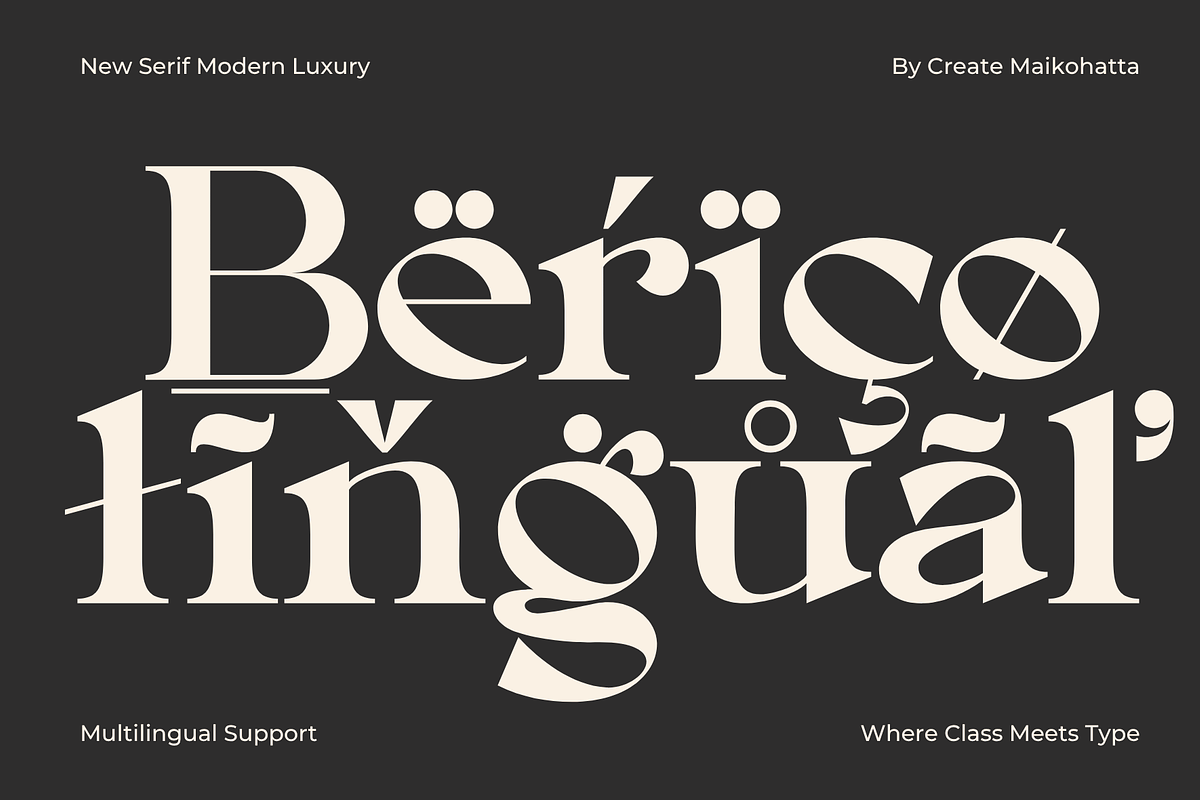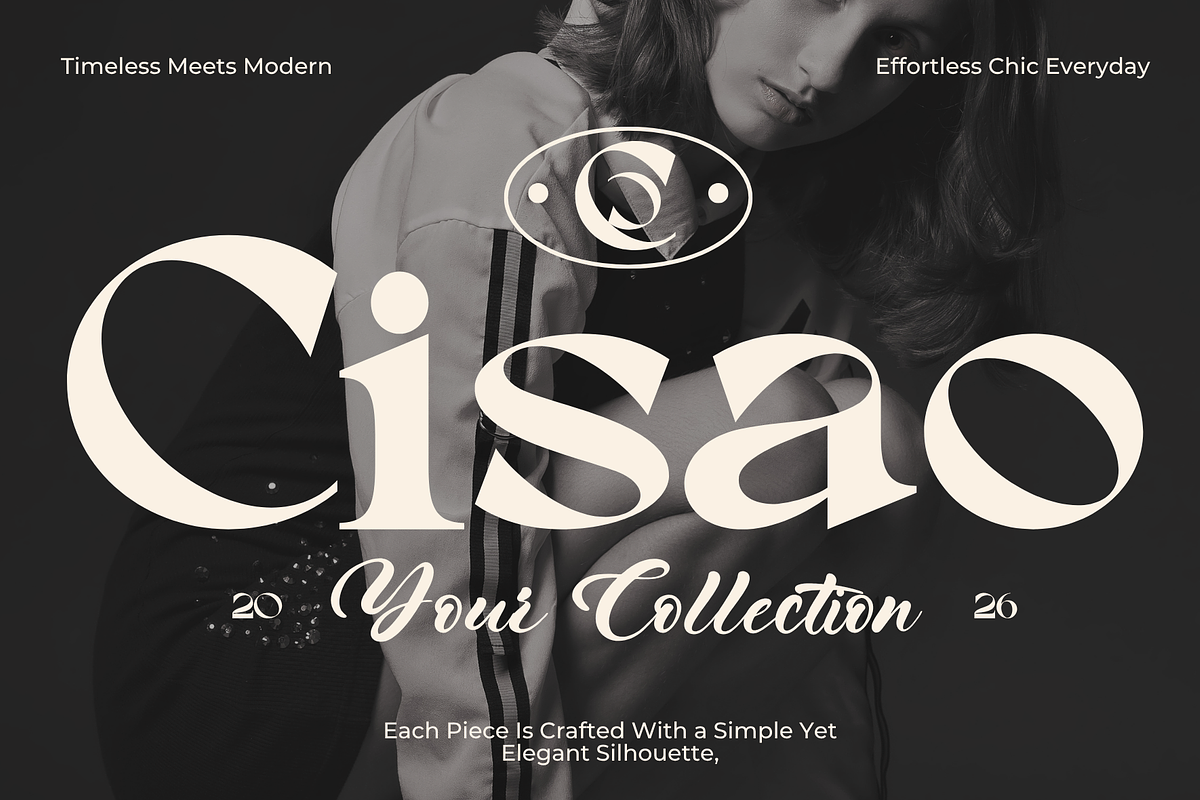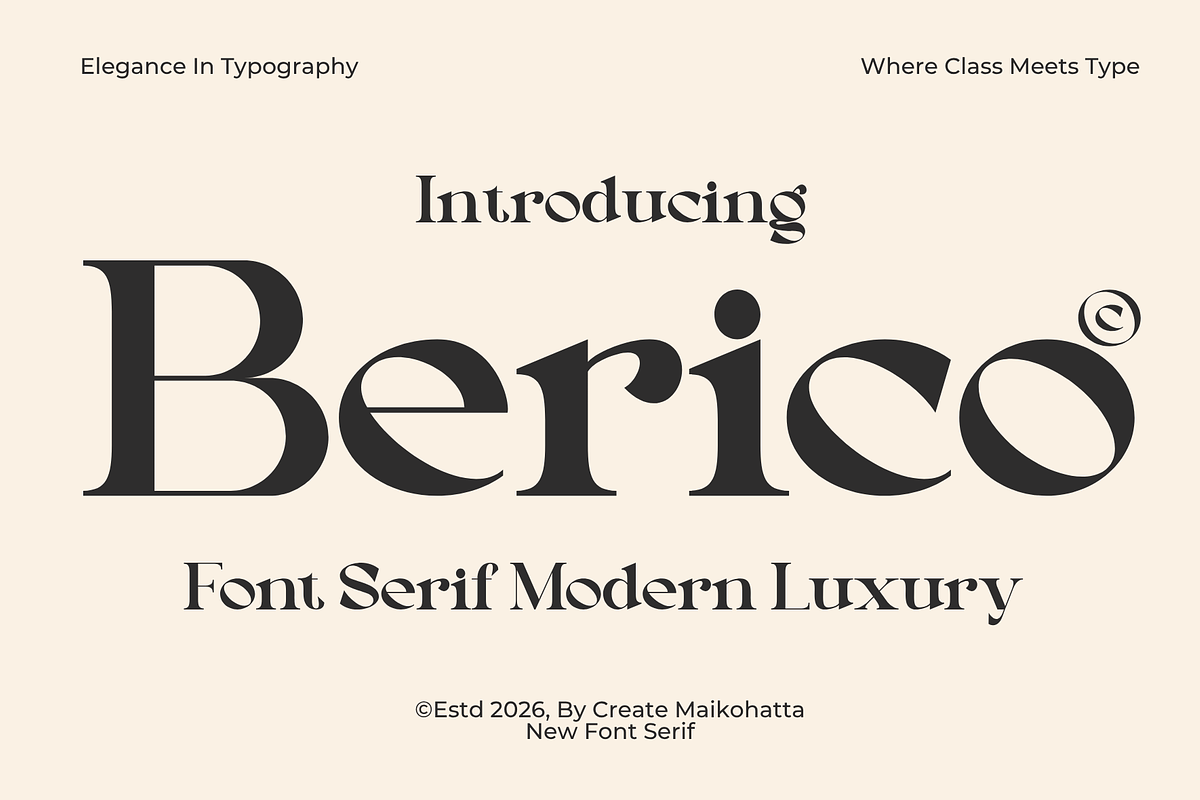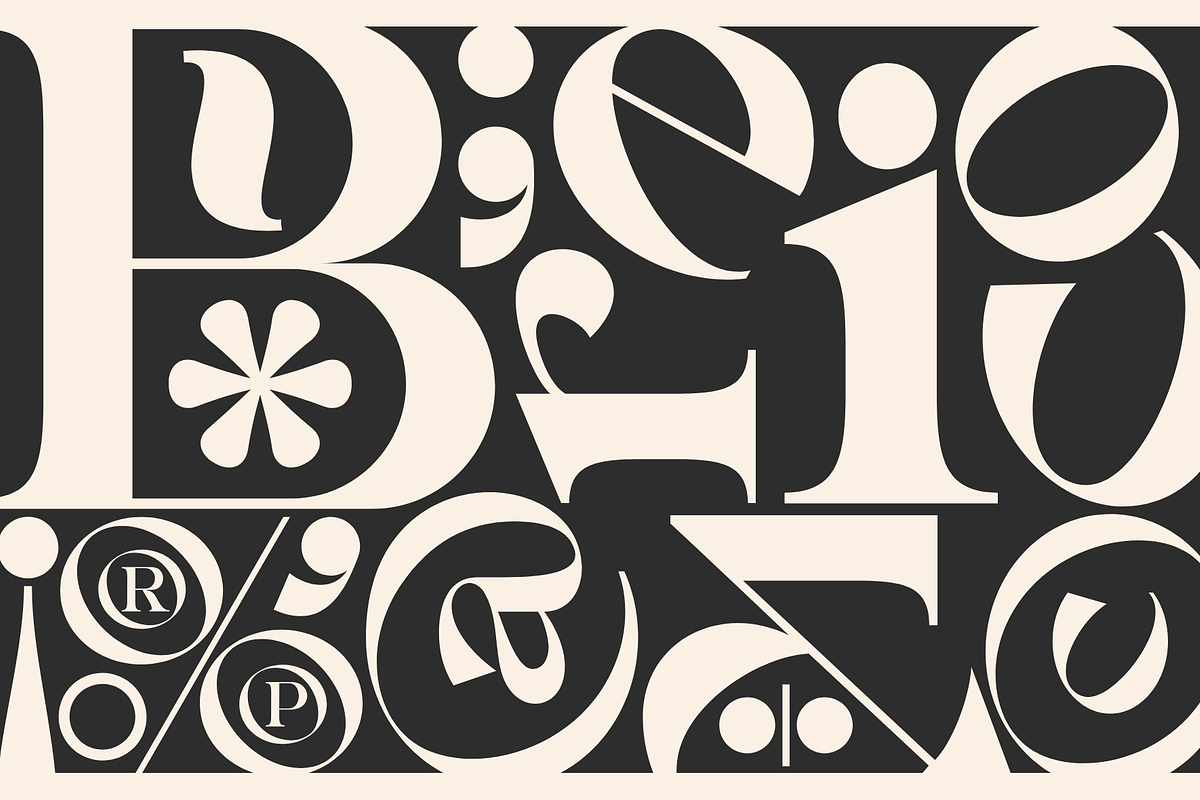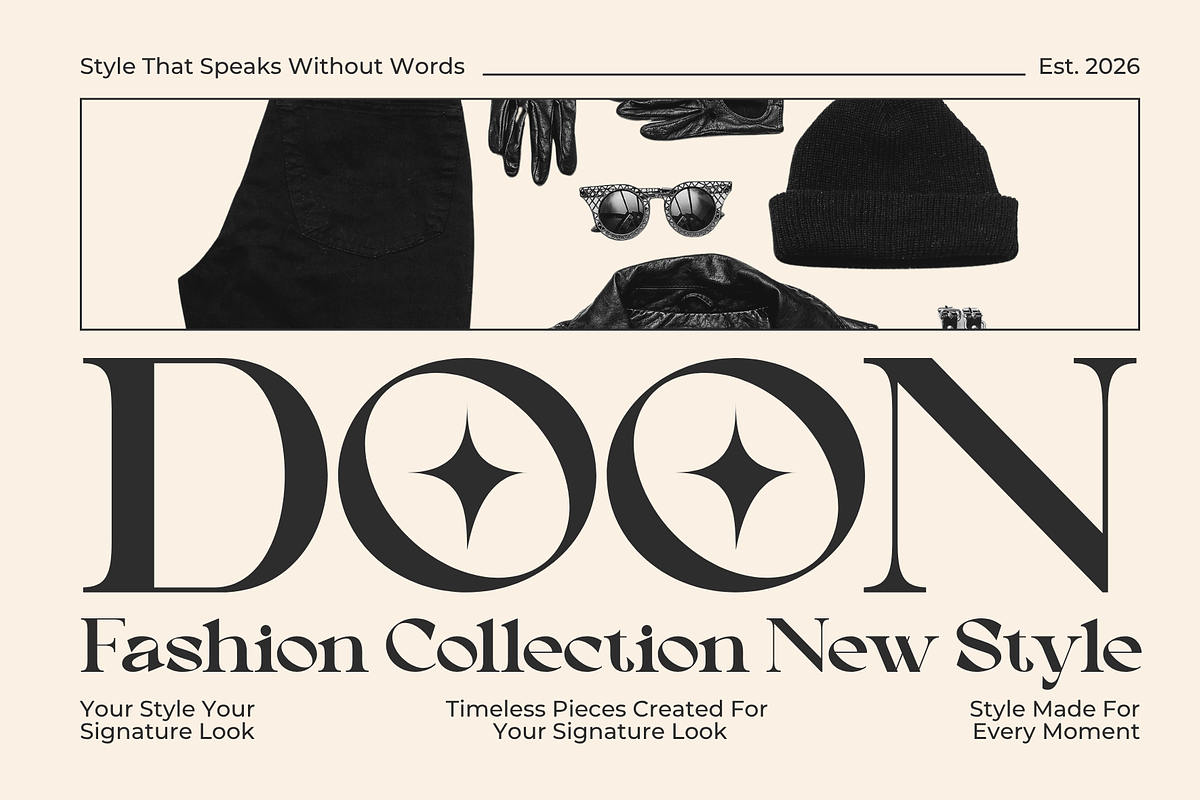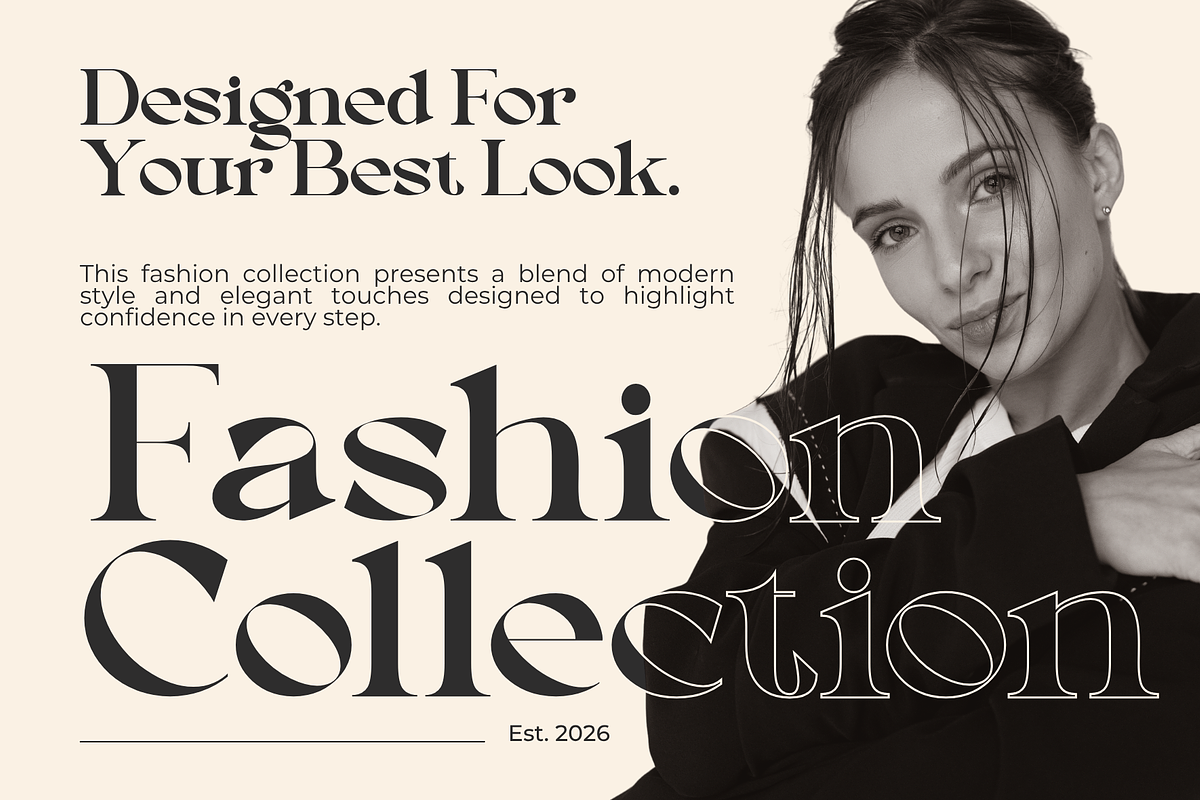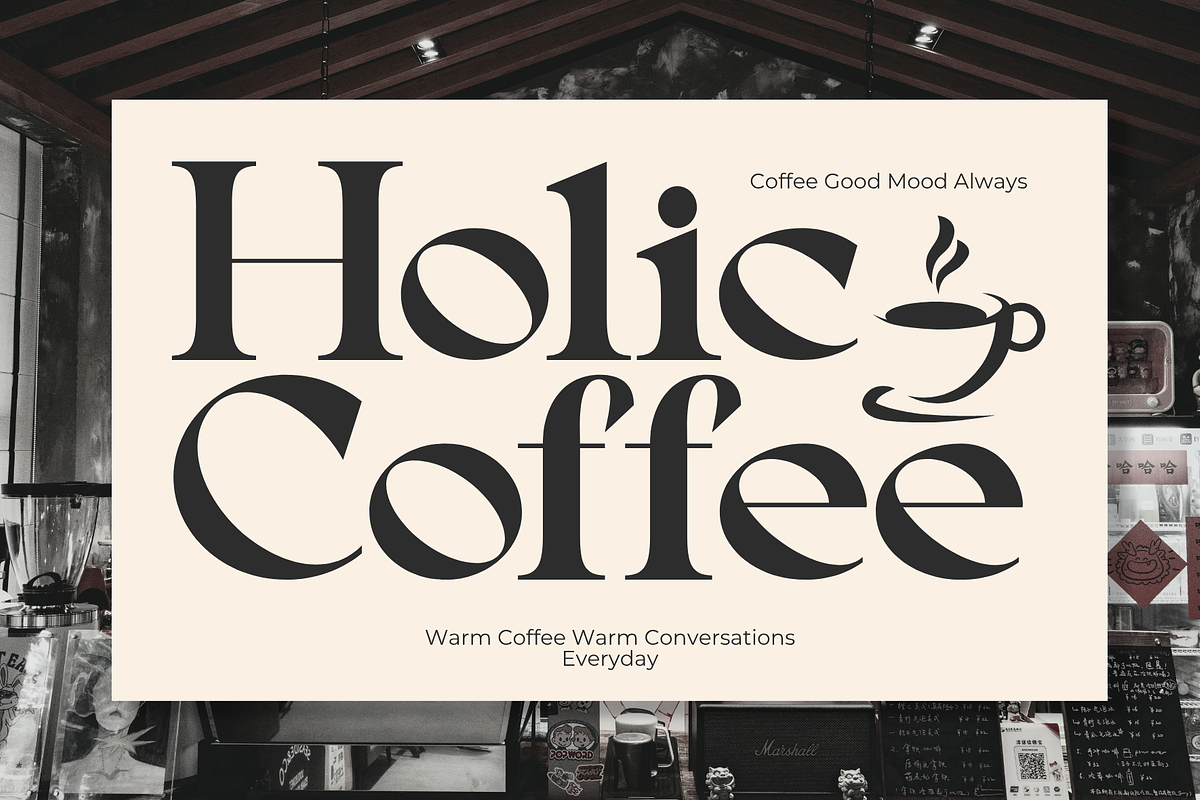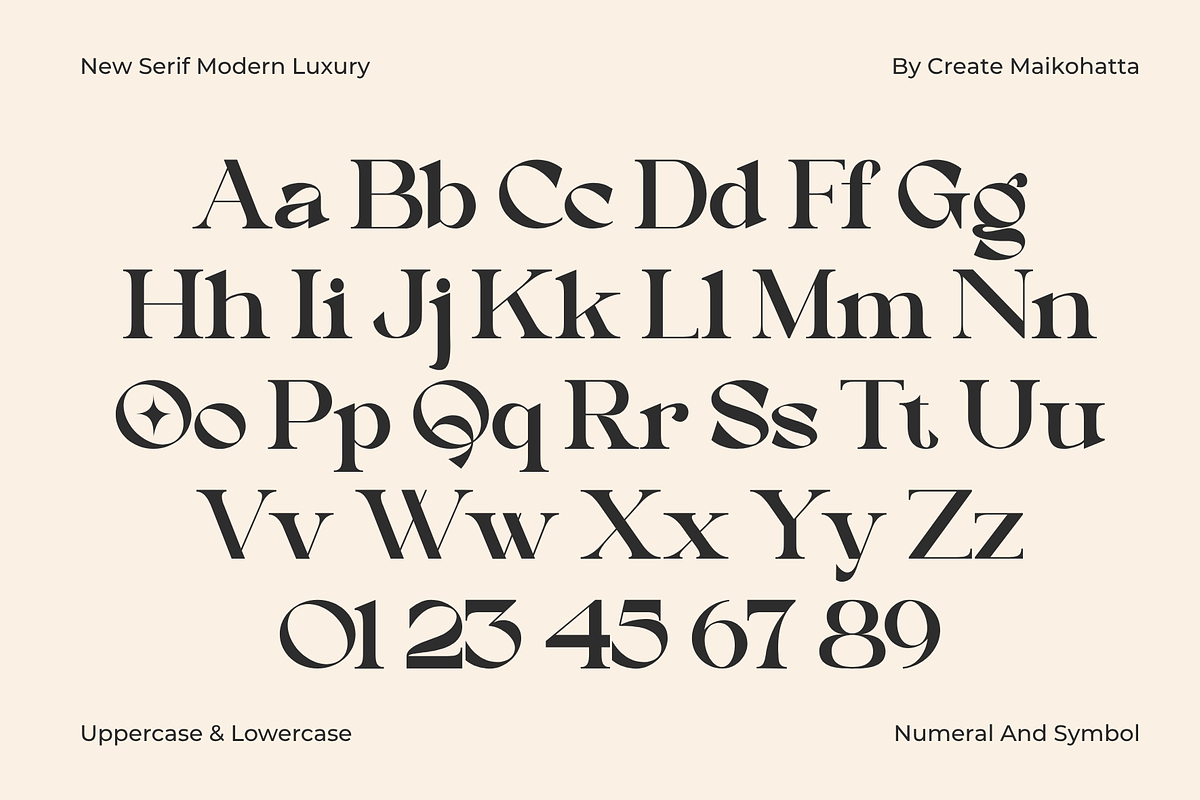
Berico – Modern Luxury Serif
Berico is a modern luxury serif font that blends timeless elegance with contemporary sophistication. Designed with high-contrast letterforms and stylish curves, this typeface delivers a refined and premium aesthetic perfect for luxury branding and editorial projects.
Its graceful character makes Berico ideal for fashion logos, magazine headlines, cosmetic packaging, wedding invitations, boutique branding, social media templates, and high-end visual identities. The font combines classic serif beauty with modern artistic details, creating a unique and memorable typography experience.